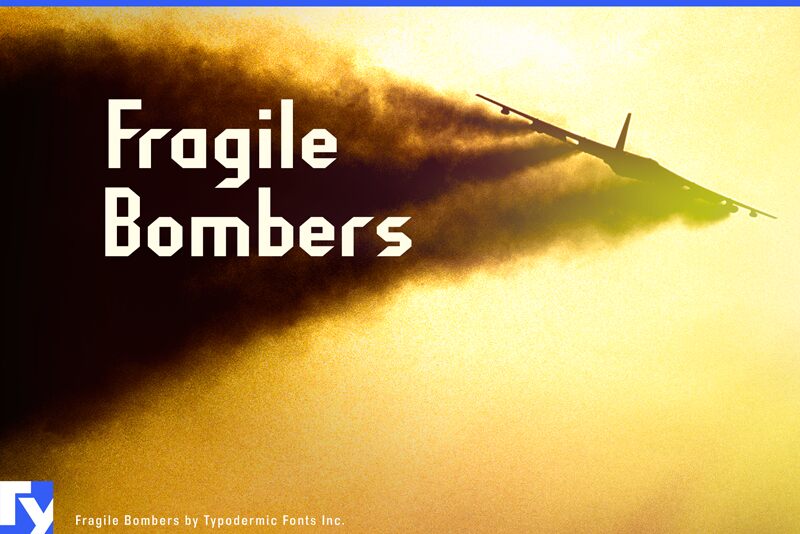
Fragile Bombers by Ray Larabie of Typodermic Fonts Inc. is a free angular techno display font with a stark, modular build. Broad strokes meet at clipped corners, and curved letters become squared, octagonal forms. The effect is mechanical and blunt.
Circuit-board graphics and hard-edged icons echo its cutaway shapes, making the font useful for game interfaces and electronic music posters. Its industrial geometry also suits science-fiction packaging and motorsport merchandise. In publishing, it can turn cover lines and section openers into graphic cues for stories about machines or technology.
Fragile Bombers is part of a larger font family.